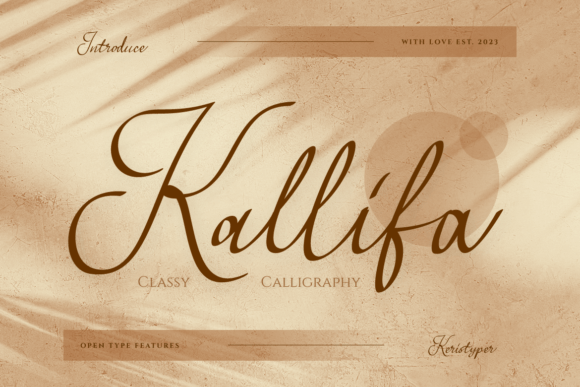
Introducing Kallifa Font, an exquisite handwritten font family that will cast a spell on your designs. This enchanting script font, crafted with love by Keristyper, will take your projects to new heights of elegance and charm. With its sweeping strokes and graceful flourishes, Kallifa is perfect for adding a touch of romance and personality to any project, from wedding invitations to branding materials.
Unleash your creativity and let Kallifa's beauty shine through. Whether you're designing a heartfelt greeting card, crafting a captivating headline, or creating a stunning logo, this versatile font will bring your words to life. Its wide range of applications makes it a must-have for any designer's toolkit, ensuring that you'll always have the perfect font to match your vision.
Indulge in the romantic charm of Kallifa Font and watch as your designs transform into works of art. Let its enchanting strokes captivate your audience and leave a lasting impression. Download Kallifa Font today and embark on a creative journey that will leave you spellbound.